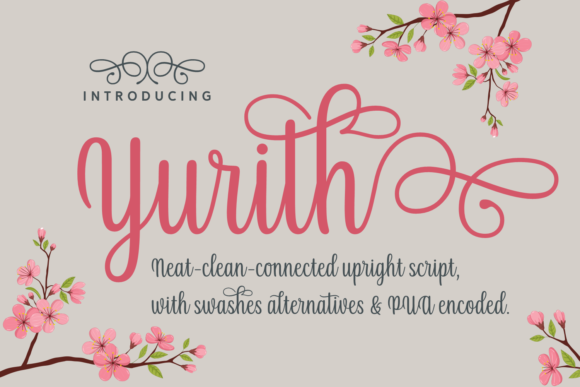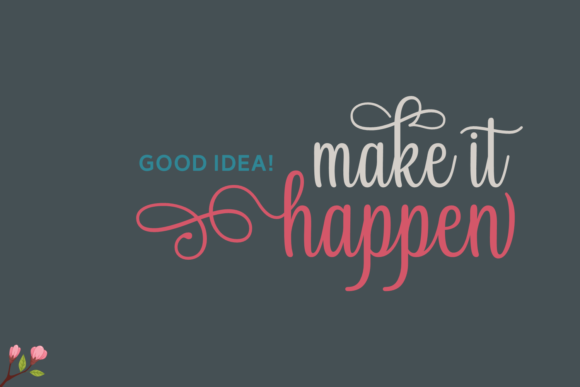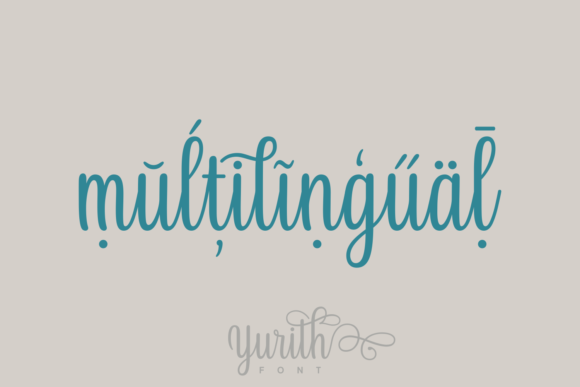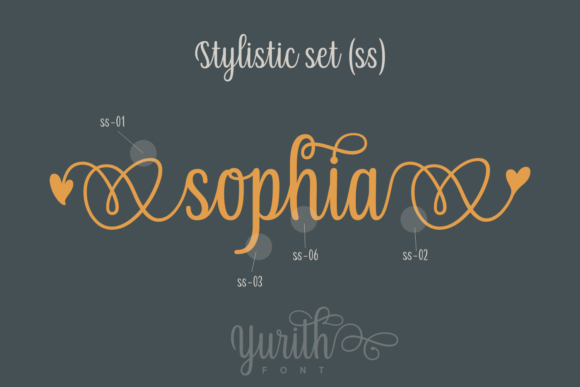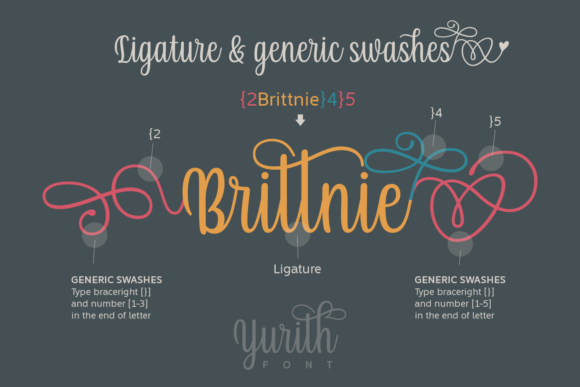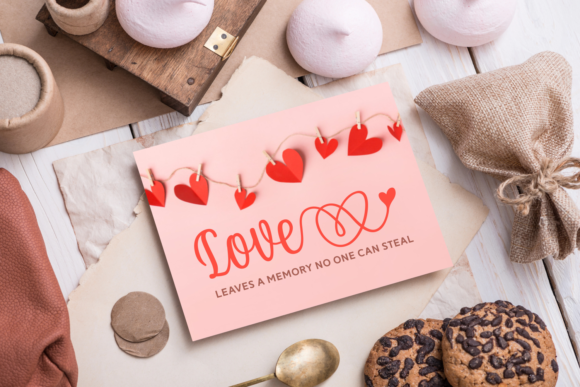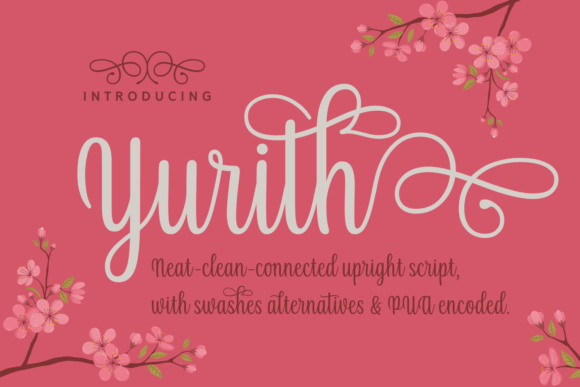
HomeScript FontsYurith Font Script Fonts Yurith Font FacebookXPinterestWhatsApp Yurith Font Poster 2 Yurith Font Poster 3 Yurith Font Poster 4 Yurith Font Poster 5 Yurith Font Poster 6 Yurith Font Poster 7 About Yurith Font Yurith is a sweet and charming script with beautiful swashes. DOWNLOAD NOW People also explored Summer Holiday Font Flowers Font Jennie Lovely Font Culting Font Apple Crisp Font Mimemog Font Gamma Rays BB Smudge Font Malstyoor Font 366 0 TagsYurith Font Previous articleWonder Script FontNext articleCheese Donuts Font LEAVE A REPLY Cancel reply Comment: Please enter your comment! Name:* Please enter your name here Email:* You have entered an incorrect email address! Please enter your email address here Website: Save my name, email, and website in this browser for the next time I comment. Personal Use Free Knox Personal Use Free Read more about this font Mika Personal Use Free Read more about this font Scarlove Personal Use Free Read more about this font Glowing Personal Use Free Read more about this font BLOG To increase your work productivity, choose the most readable fonts. In today's fast-paced work environment, where digital communication and information consumption are integral to our daily routines, the choice of fonts can significantly impact... Best Fonts for T-Shirt Design – Top 2025 Picks Using Fonts in Digital Marketing: Tips to Strengthen Your Brand Identity Exploring Font Trends